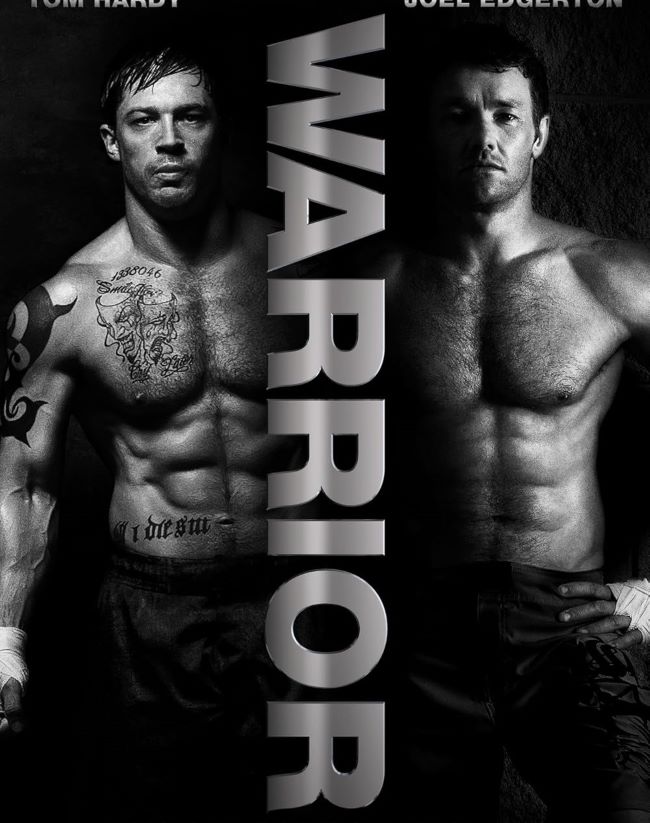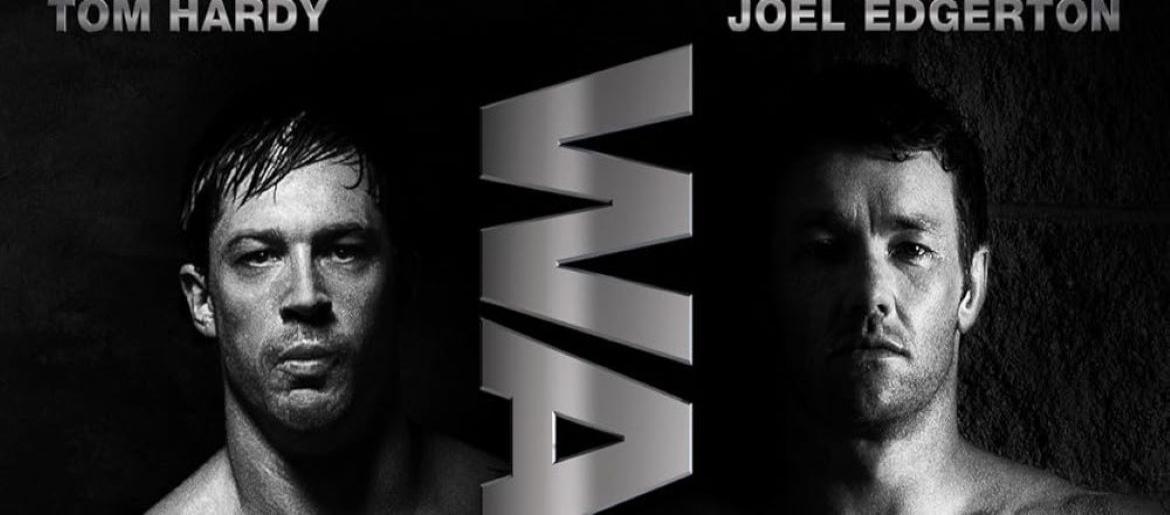
Warrior Font
The Warrior Font perfectly mirrors the intensity, grit, and raw energy of Gavin O’Connor’s 2011 film. Its bold, angular, and heavy lettering conveys strength, determination, and high stakes, reflecting the brutal world of mixed martial arts where every fight counts. Fonts similar in style include Impact, Bank Gothic, or Haettenschweiler, all delivering a strong, aggressive presence ideal for action-packed designs. Free alternatives can replicate the same punchy, resilient aesthetic, making this typeface perfect for posters, sports branding, or any project that needs to feel bold and uncompromising.
About Warrior
Released in 2011, *Warrior* is a sports drama directed by Gavin O’Connor and starring Tom Hardy, Joel Edgerton, and Nick Nolte. The film follows two estranged brothers as they confront personal demons and compete in a high-stakes mixed martial arts tournament. Praised for its emotional depth, intense fight sequences, and strong performances, *Warrior* is a gripping tale of family, resilience, and the pursuit of victory against all odds.